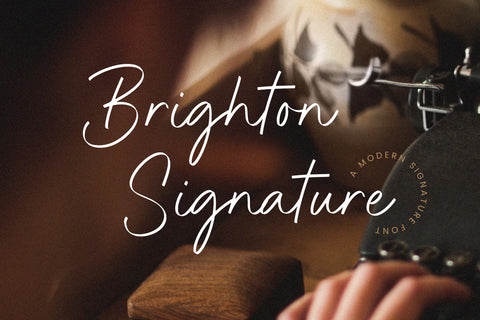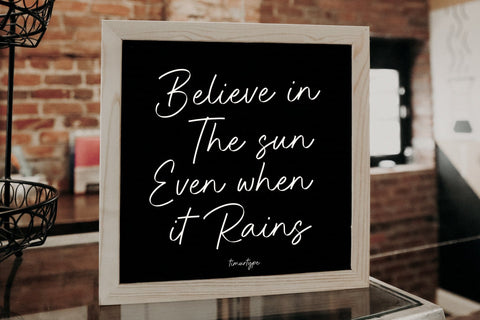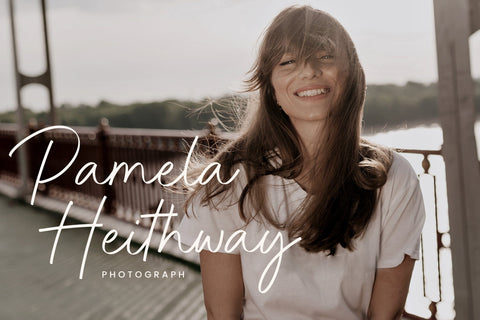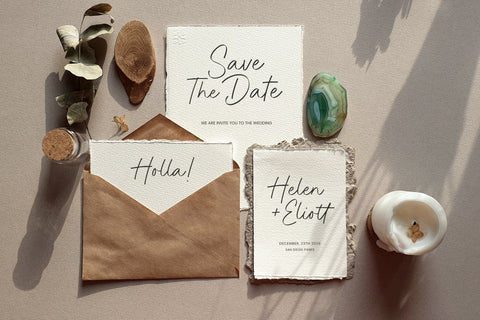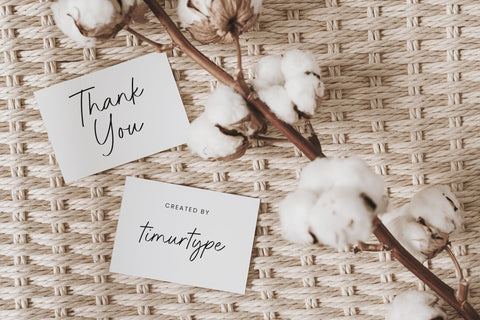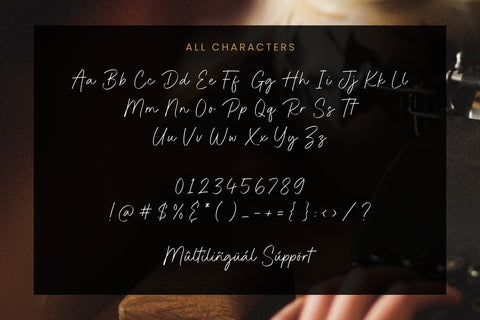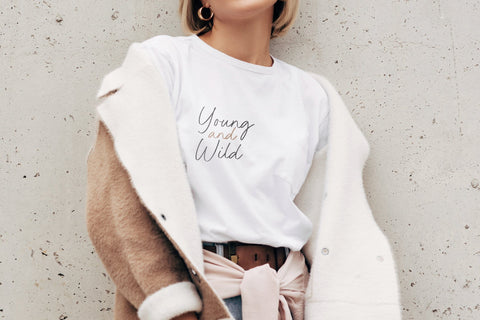
Brighton Signature - Modern Signature font
Brighton Signature - Modern Signature font , which was created with great care and specially created for you
Brighton Signature is perfect for product packaging, branding project, megazine, social media, wedding, or just used to express words above the background.
– multilingual support.